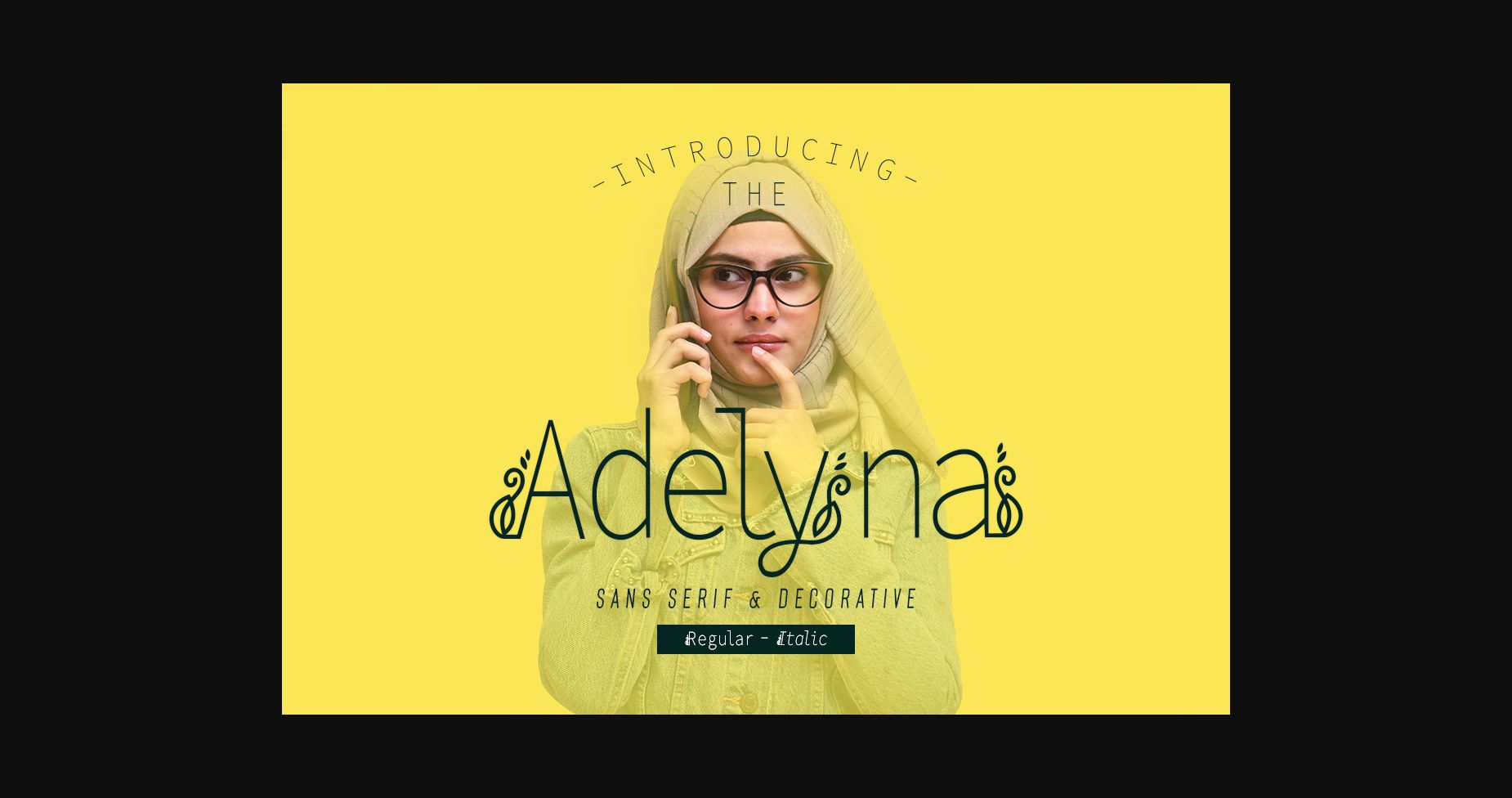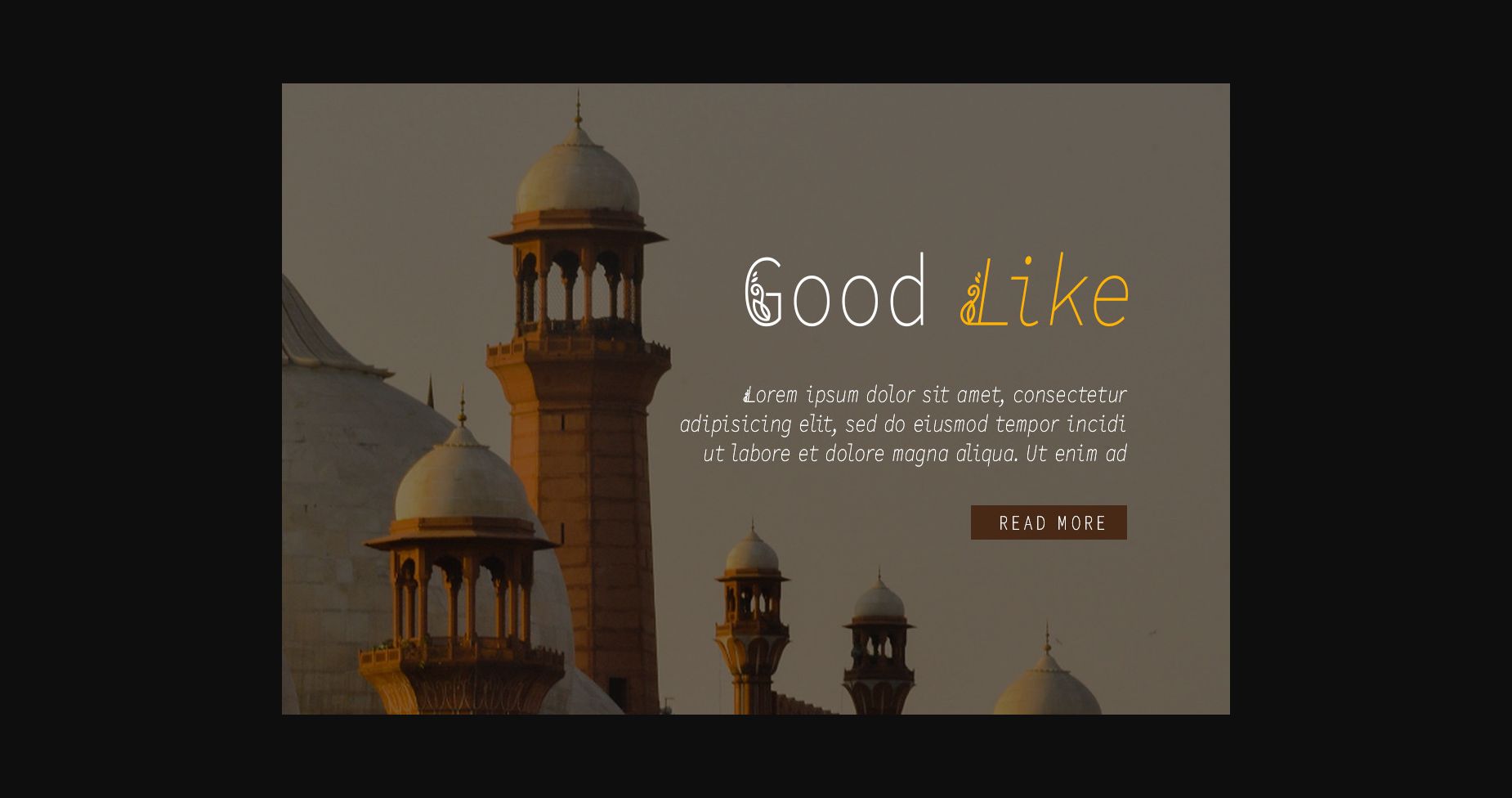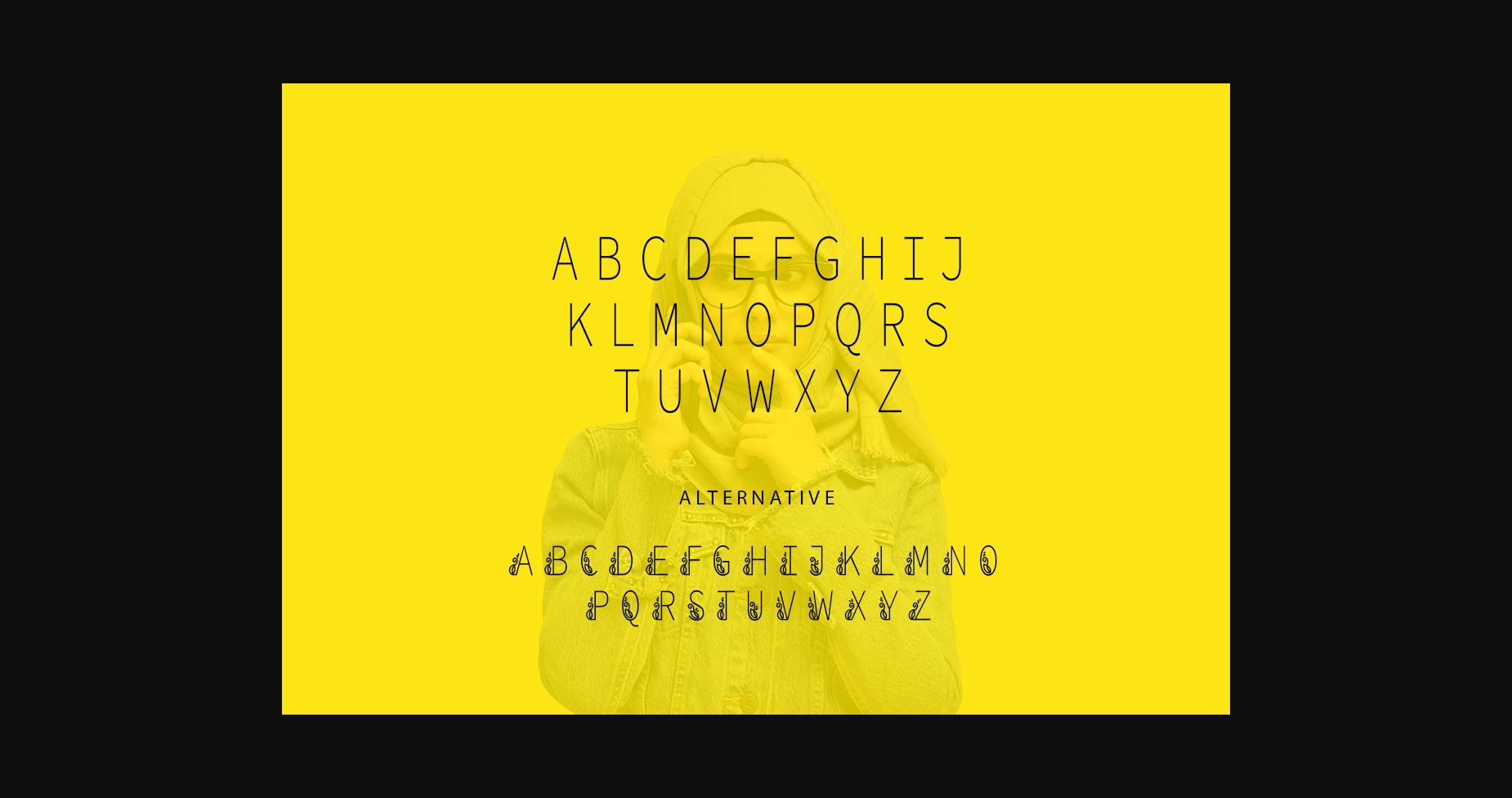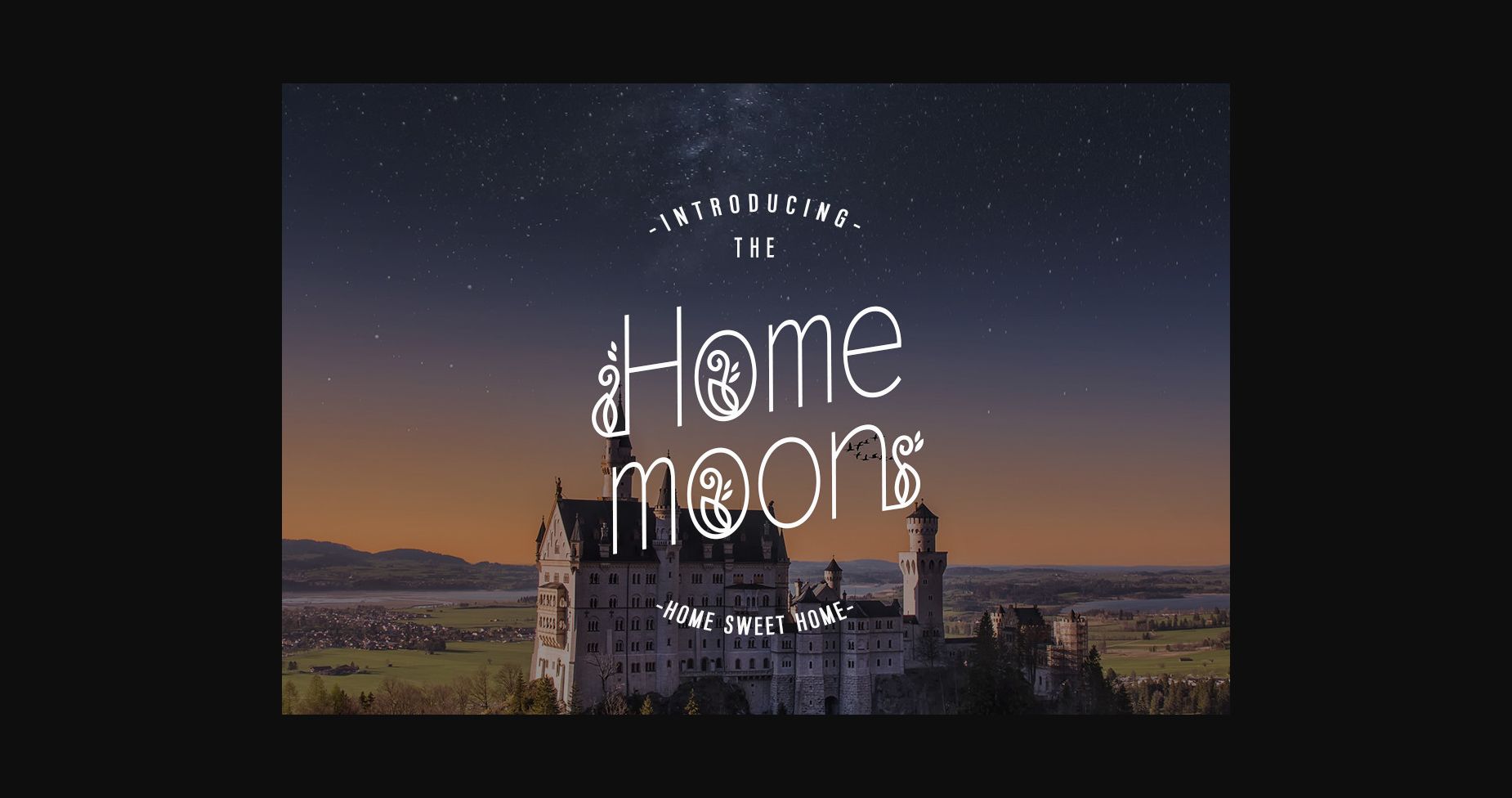
Described by its intricate swirls, Adelyna blends perfectly the professional look of a sans serif font with a stylish mix of decorative elements. Add it to your most creative designs and notice how it makes them stand out! Adelyna is PUA encoded which means you can access all the glyphs and alternates with ease!